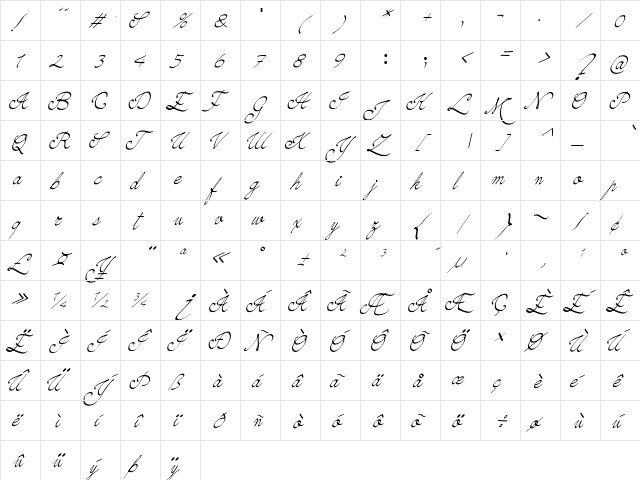
Pada Regular
| Foundry | Raquel Santos |
| Designer | Raquel Santos |
Design Context for Pada Typeface
Pada is a composed and adaptable typeface that performs quietly and consistently across a wide range of design contexts.